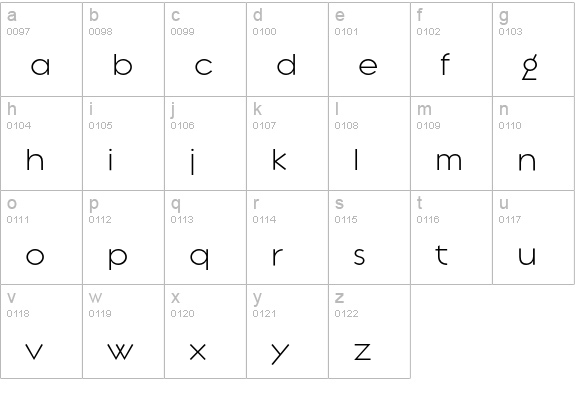
Regulator-Light Font Details
Regulator-Light is a refined, elegant variant in the Regulator typeface family \xE2\x80\x94 well suited to elegant body text, refined sub-headings, and luxury branding.
Regulator-Light font is a stunning typeface that exudes elegance and sophistication. Its slender and delicate letterforms create a sense of grace and refinement, making it the perfect choice for projects that require a touch of sophistication. This font combines classic elements with a modern twist, resulting in a versatile typeface that can be used for a wide range of design applications. Whether it's for a wedding invitation, a branding project, or a magazine layout, Regulator-Light font will effortlessly elevate any design. The free availability of Regulator-Light font adds to its appeal, making it accessible to designers and creatives of all levels. You can easily download this font at FontsMarket.com, ensuring that you can incorporate its timeless beauty into your projects without any hassle. With its clean lines and balanced proportions, Regulator-Light font is a true work of art. Its legibility and versatility allow it to shine in both small and large text sizes, ensuring that your message is communicated effectively. Whether it's used for body text or headlines, this font will captivate your audience and leave a lasting impression. Regulator-Light font is a typeface that effortlessly combines elegance, versatility, and accessibility. Its free availability at FontsMarket.com makes it a valuable addition to any designer's toolkit. So why wait? Download Regulator-Light font today and let its timeless beauty enhance your next design project.